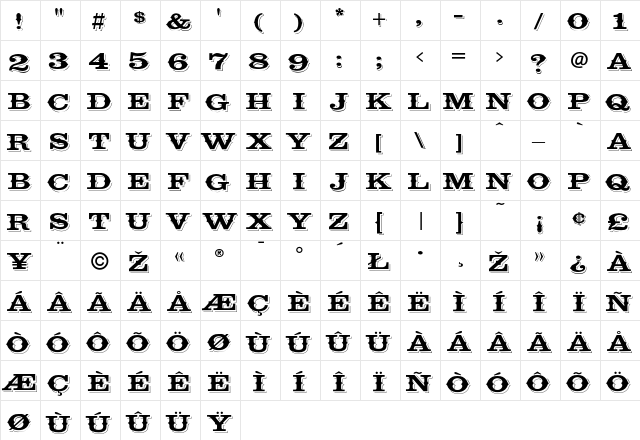
Cavalcade Regular
| Foundry | Digitized by Dan X. Solo. Software by Dover Publications, Inc |
Design Context for Cavalcade Typeface
Cavalcade is a composed and adaptable typeface that performs quietly and consistently across a wide range of design contexts.